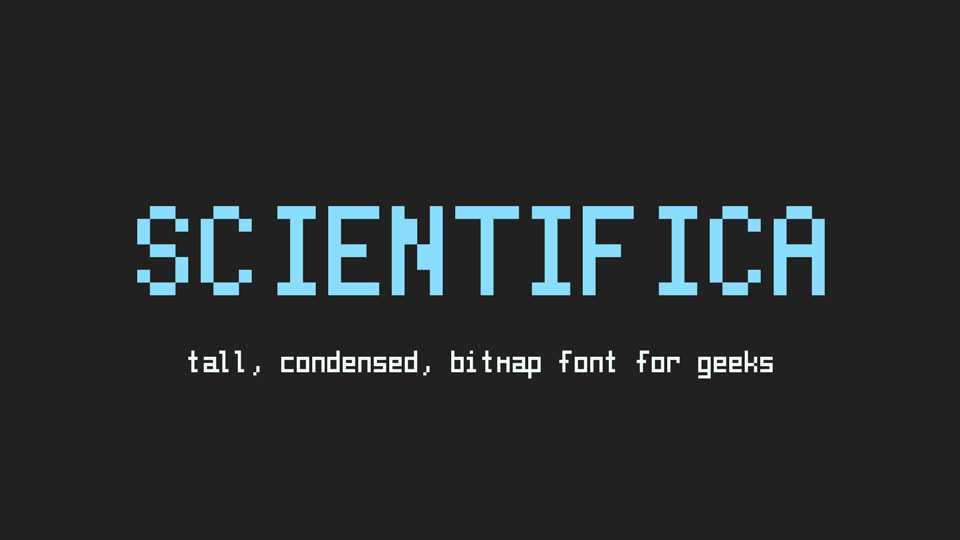
Download Scientifica typeface, a tall and condensed bitmap font family for geeks in Regular, Bold and Italic variants. Scientifica is largely based on Creep, with a number of minor tweaks to improve readability.
Designer: Akshay Oppiliappan